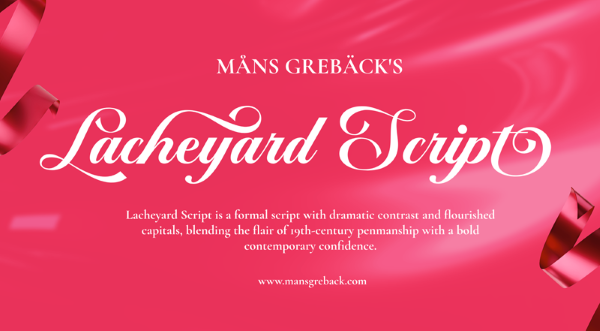
Lacheyard Font
Lacheyard Script by Måns Grebäck is a calligraphic script with the elevated, composed elegance that has made this designer one of the most respected names in the genre. Its flowing letterforms carry a classical pen-drawn quality — graceful and confident without tipping into excess. With 974 glyphs in the character set, it offers serious typographic depth: alternate characters, ligatures, and extended language coverage give designers genuine flexibility. Perfect for wedding stationery, luxury branding, editorial headers, and any project where polished cursive refinement is the goal. Free for personal use.